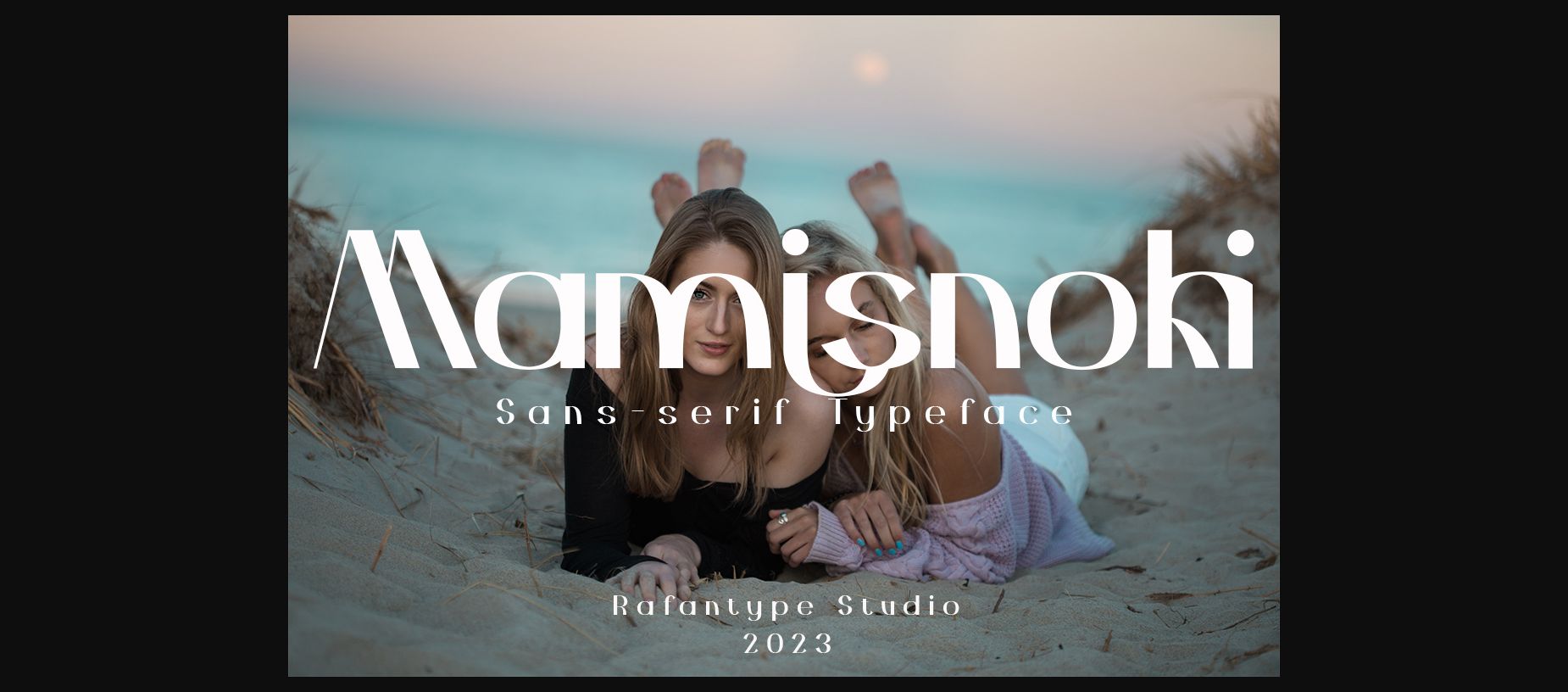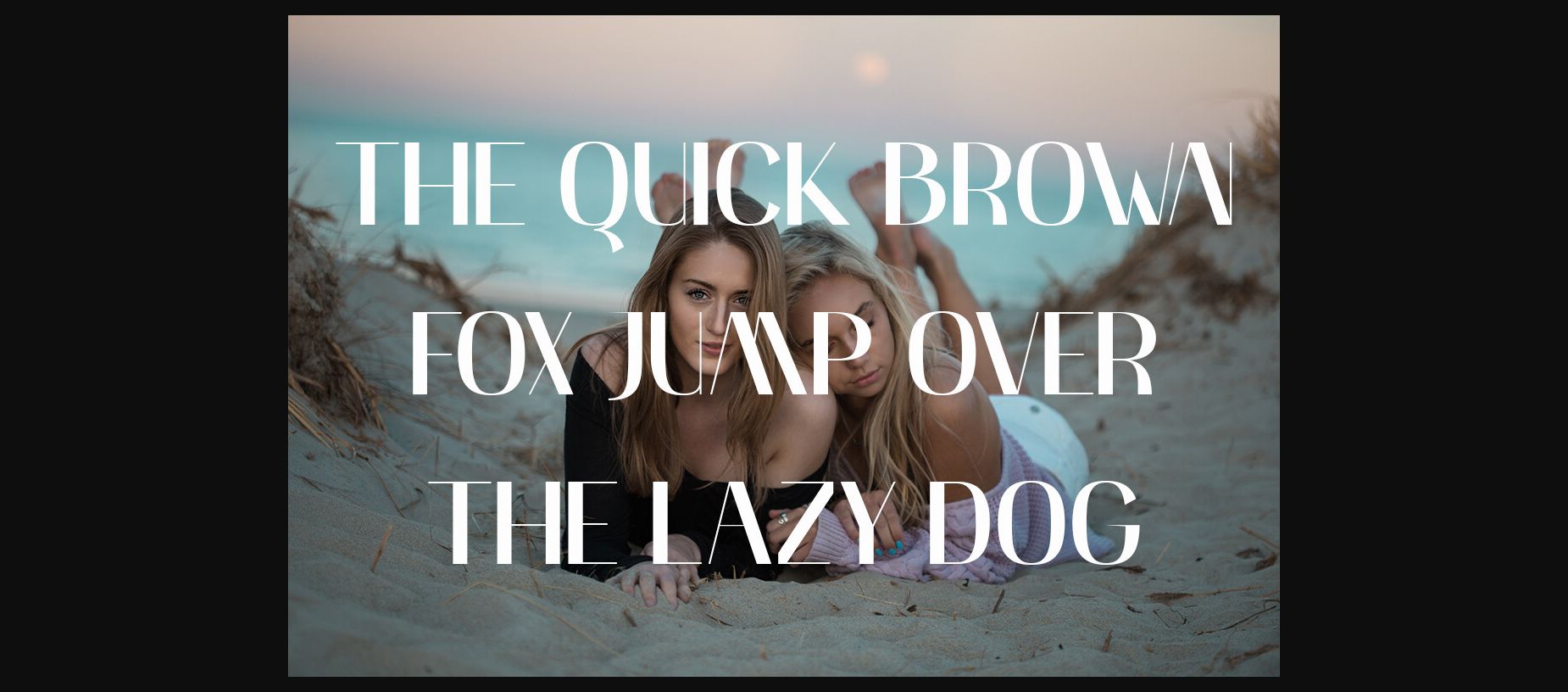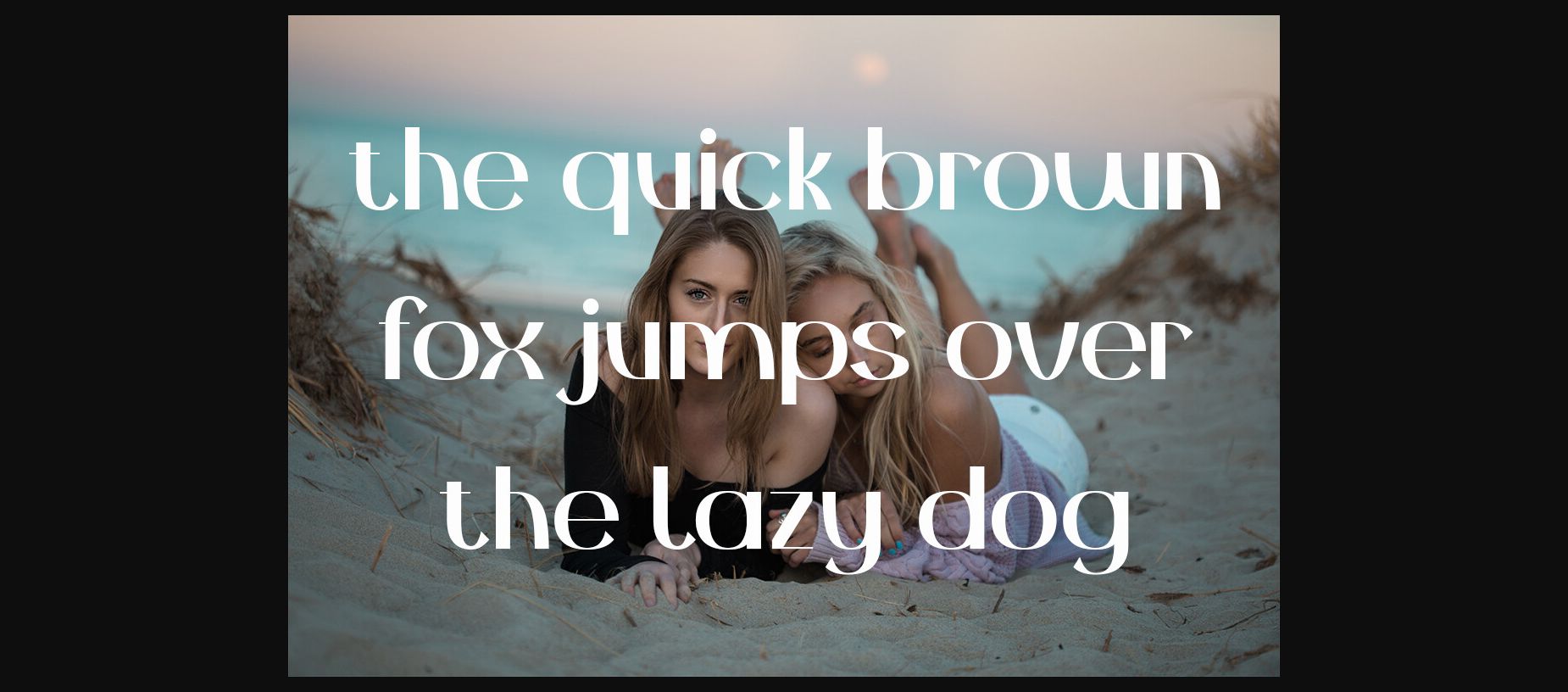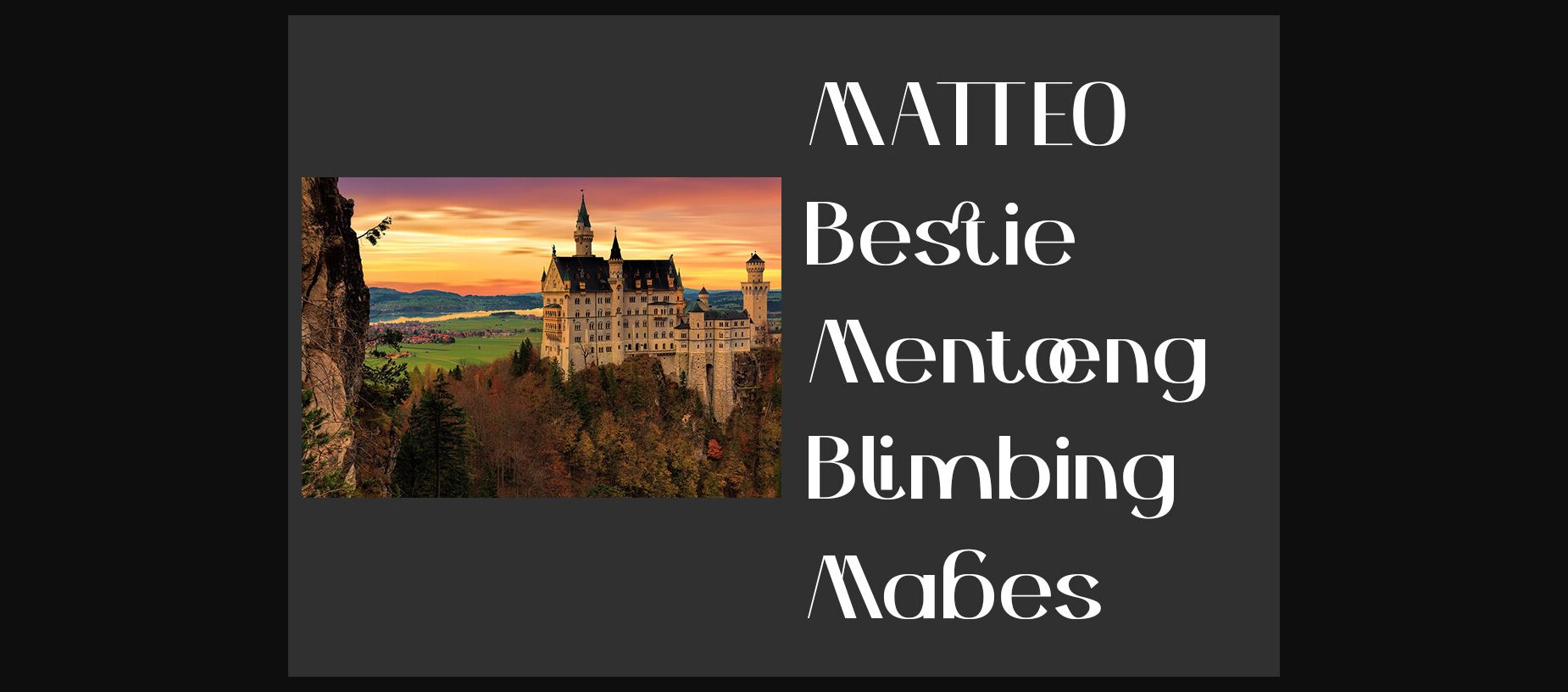
About Mamisnoki Font
Mamisnoki is a modern and stylish serif font perfect for fashion and luxury branding, high-end fashion magazines, websites, social media graphics, digital ads, brochures, flyers, business cards, and many more. Its unique alternates and ligatures make it stand out from other serif fonts on the market, while its clean and modern look makes it ideal for use in a wide range of design projects.